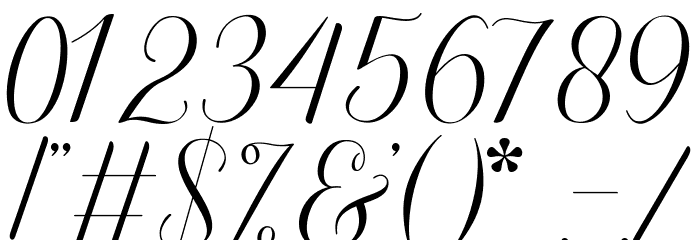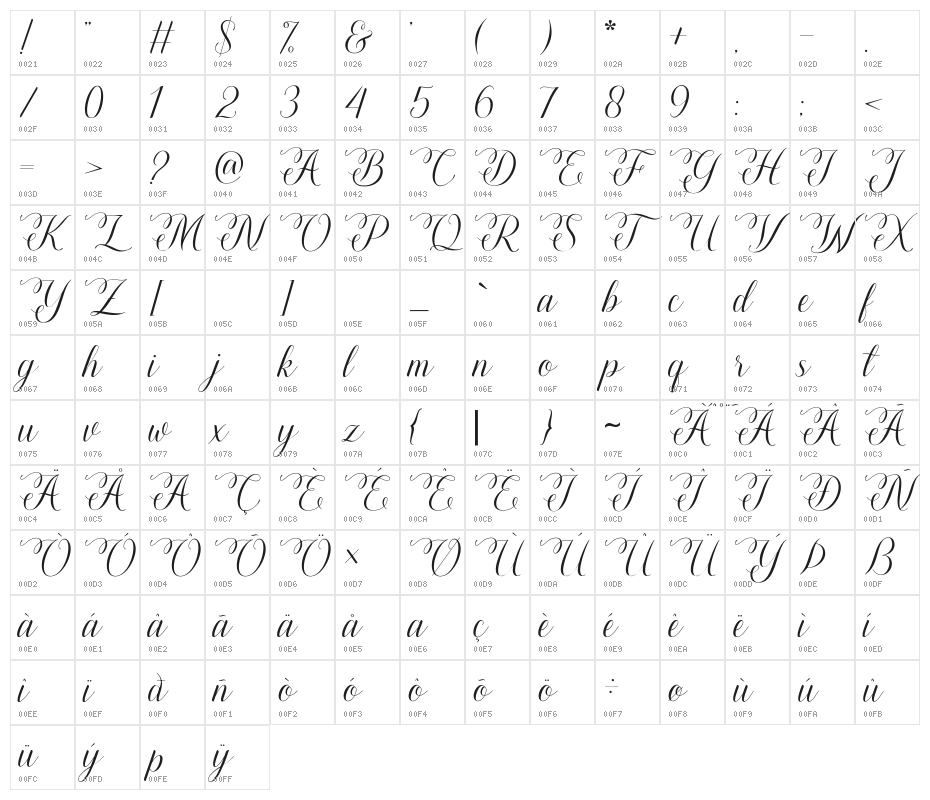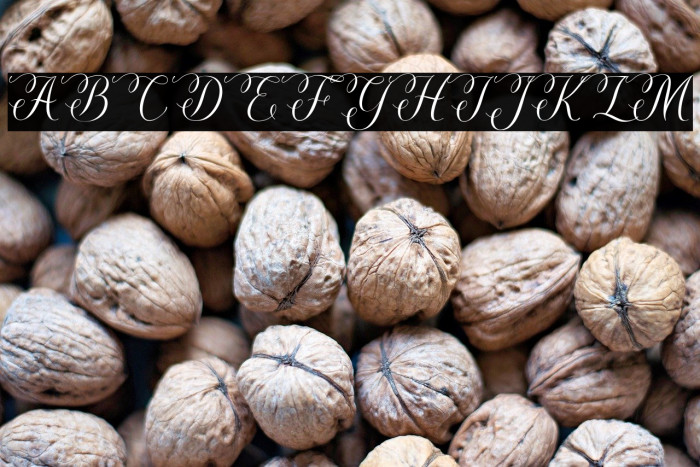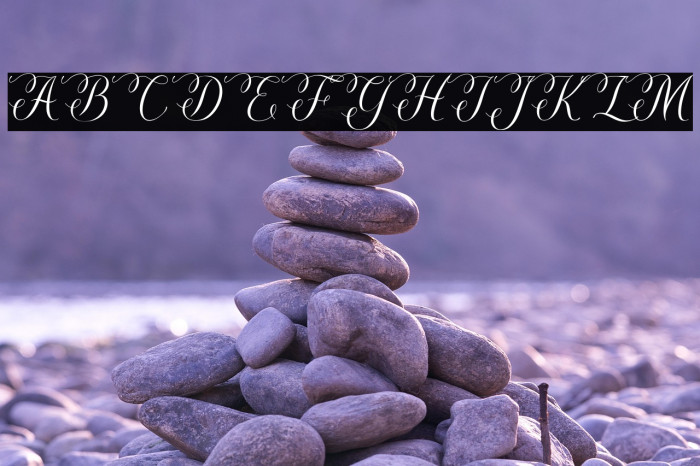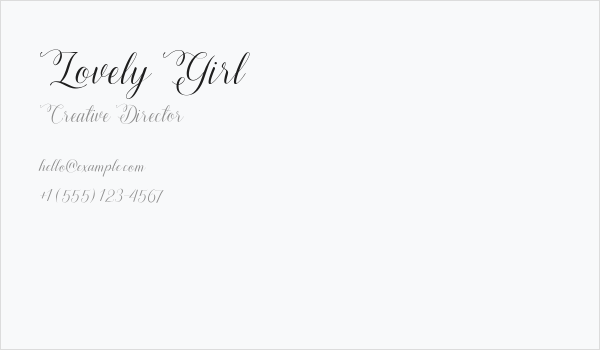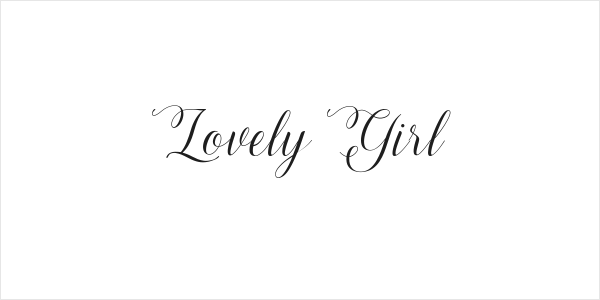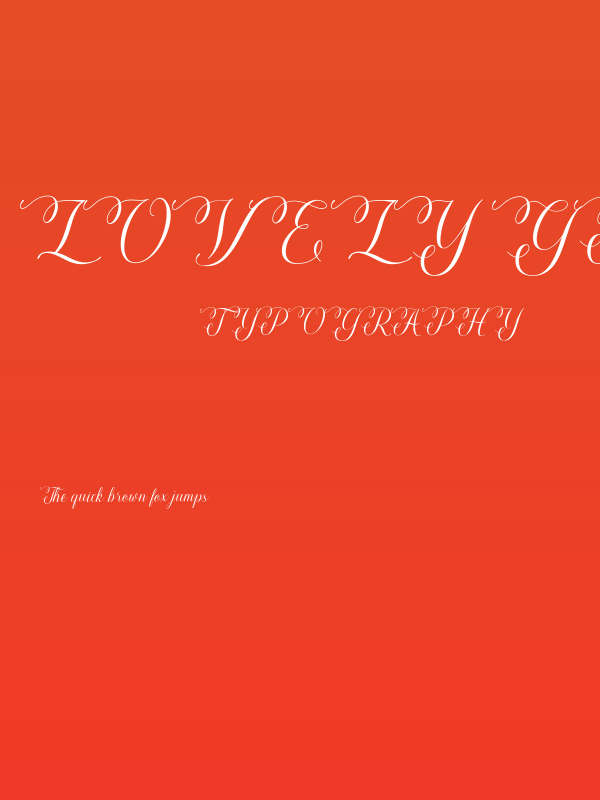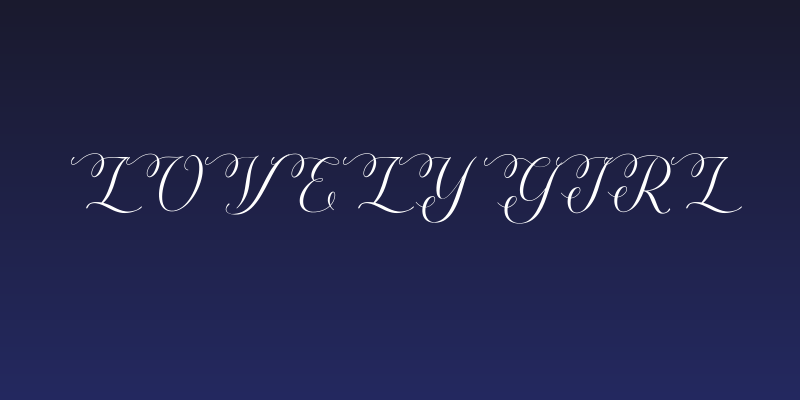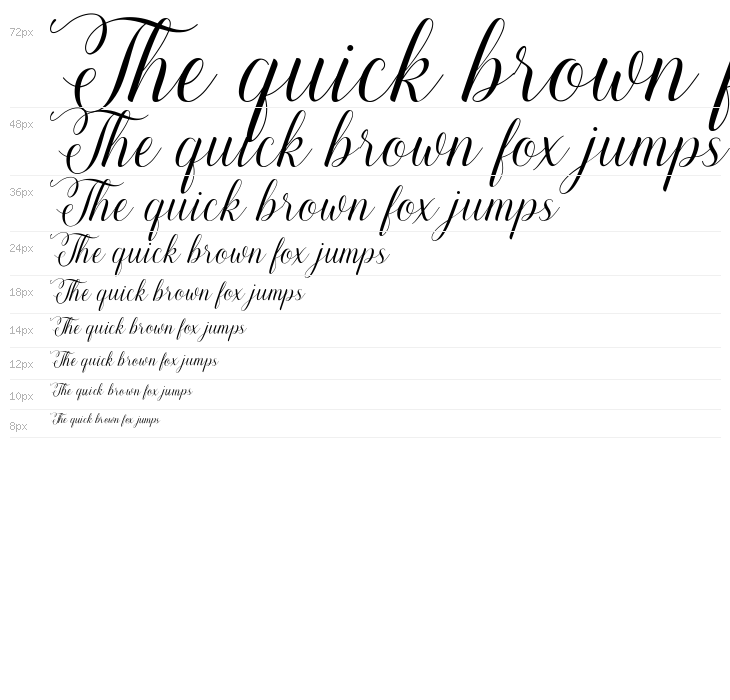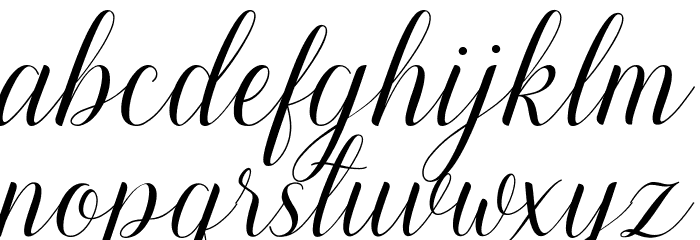
Lovely Girl Font
Lovely Girl Description
This font exudes elegance and sophistication with its flowing, cursive script style. The letters are intricately designed with delicate swirls and loops, giving it a romantic and graceful appearance. The uppercase letters are particularly ornate, featuring elaborate flourishes that extend beyond the baseline and cap height. The lowercase letters maintain a consistent slant, adding to the fluidity and charm of the typeface. Numbers and special characters are crafted with the same attention to detail, ensuring a cohesive look across all elements. The overall design is reminiscent of classic calligraphy, making it ideal for projects that require a touch of elegance and refinement.
| Proposed Projects | Wedding invitations, luxury branding, elegant stationery, romantic quotes. |